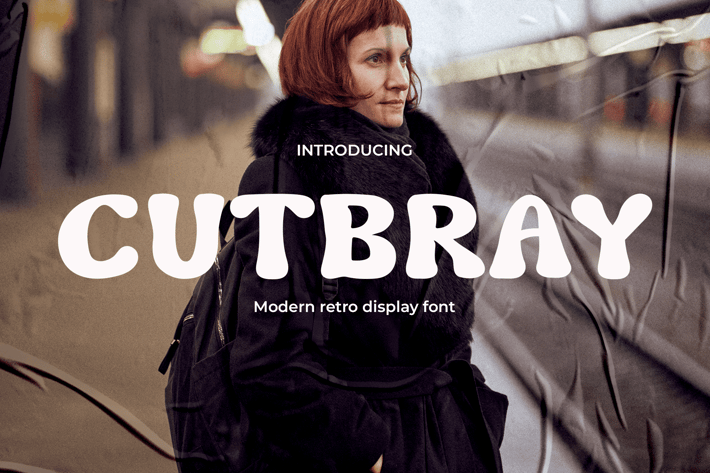
Retro Font - Cutbray
Cutbray Retro Font classic 70s style brings a touch of vintage charm. This font is perfect for various applications, from nostalgic logos to trendy restaurant menus. Its retro aesthetic and clean lines make it a versatile choice for creating eye-catching designs that resonate with the past while staying stylishly modern.